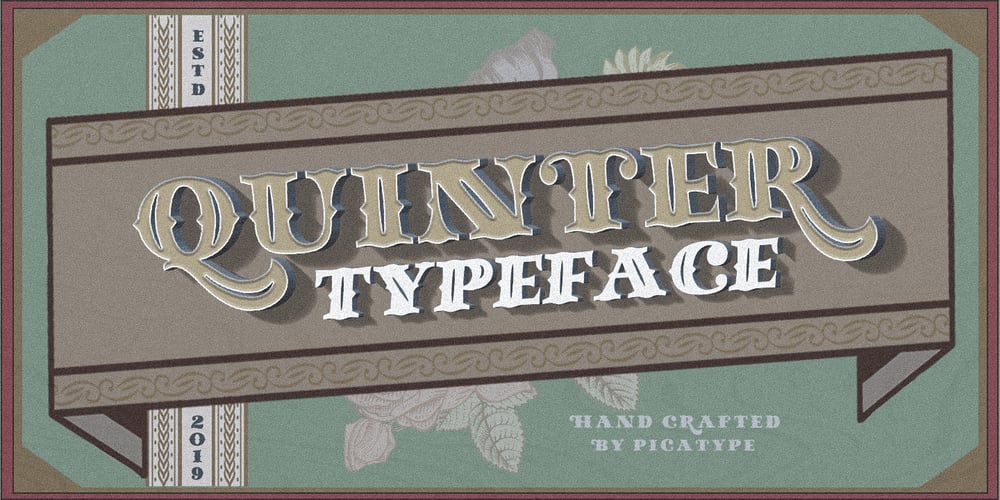
Quinter
Quinter font
Quinter Font Family was designed by Akmal Yusar and published by Picatype. Quinter contains 4 styles and family package options. Quinter is inspired by the writing on the vintage beer labels from the good old days, but still has a strong modern appearance. It come with 2 types of styles. Each combination has been carefully crafted to make your design look better. Ideal for product names, packages, labels, old-fashioned coffee shops, bars and everything with special characteristics in the past. This combination allows you to easily build beautiful vintage designs in a short amount of time. To enable the OpenType Stylistic alternates, you need a program that supports OpenType features such as Adobe Illustrator CS, Adobe Indesign & CorelDraw X6-X7, Microsoft Word 2010 or later versions. We hope you enjoy the font, please feel free to comment if you have any thoughts or feedback. Or simply send me a PM or email me at picatypestudio@gmail.com. Thanks for purchasing and have fun!